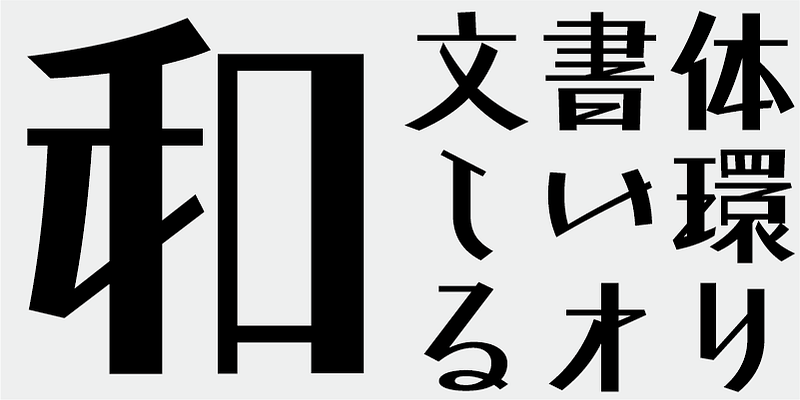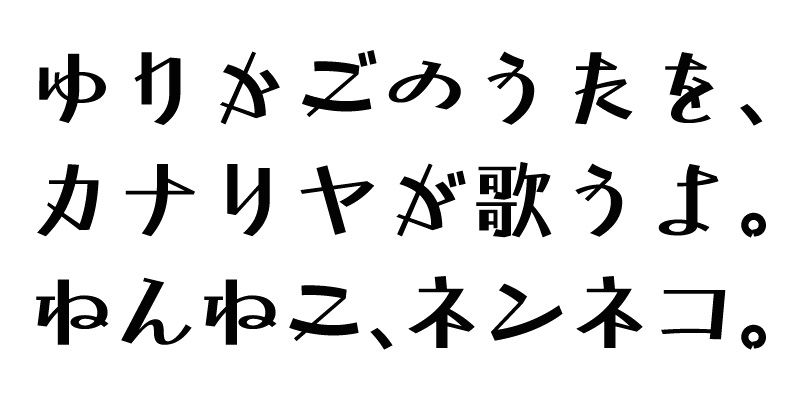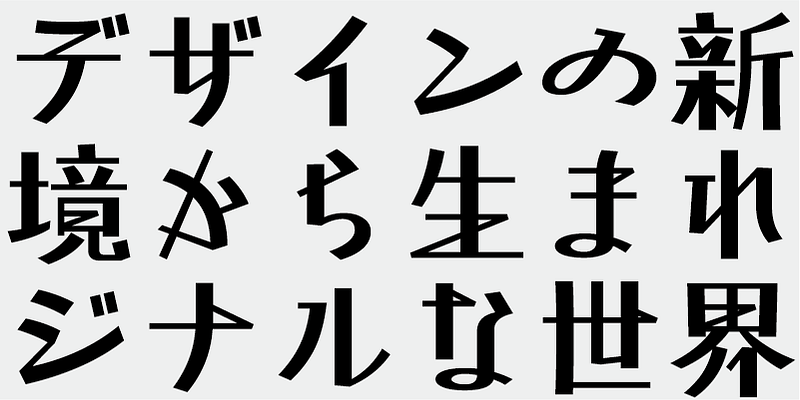
In this modern and simple typeface, Kanji characters with Japanese-style elements are effectively combined with unique kana characters. This is very useful when you need a high-impact display typeface.
In this modern and simple typeface, Kanji characters with Japanese-style elements are effectively combined with kana characters with originality. This will be very useful, when you need a display typeface with a strong visual appeal.